Launch into Lettering
Learn the basics of hand lettering and modern calligraphy in an easy, approachable way while creating your own greeting card. Lessons are pre-recorded so you can go at your own pace.
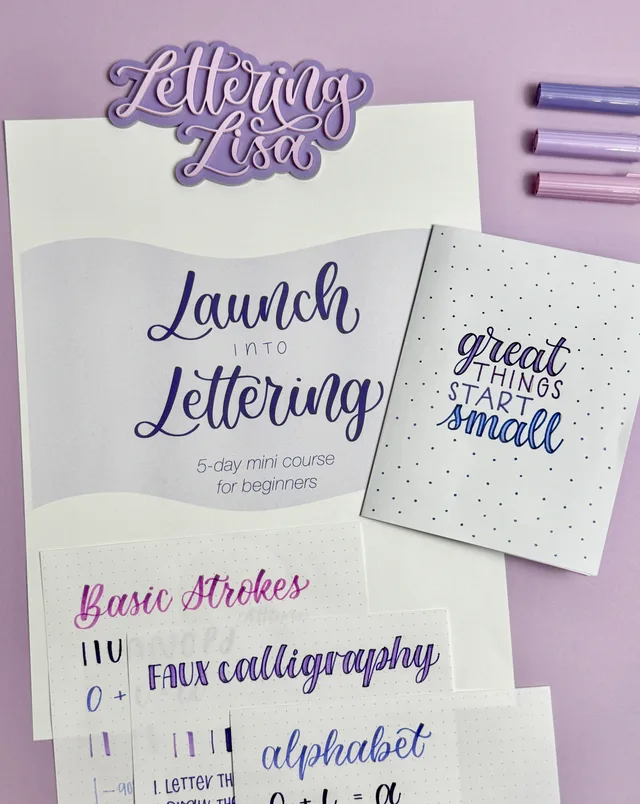
What's Included
What's included in Launch into Lettering
In this free mini course, you'll learn the basics while creating your own greeting card. Set aside 5 to 10 minutes a day, and you'll be amazed at how you progress.
DAY 1
Faux Calligraphy
Learn the concepts behind brush lettering with a regular pen.
DAY 2
Basic Brush Strokes
Start building muscle memory with the strokes that form letters.
DAY 3
Alphabet
Brush letter the full alphabet and gain confidence with each stroke.
DAY 4
Quote
Connect letters to form words by brush lettering a quote.
DAY 5
Freehand
Personalize your greeting card without any tracing.
A NOTE FROM LISA
When I was just starting out with lettering, I felt a bit overwhelmed. That's why I created the Launch into Lettering mini course—to make learning lettering easy and fun, without the intimidation of where to begin.